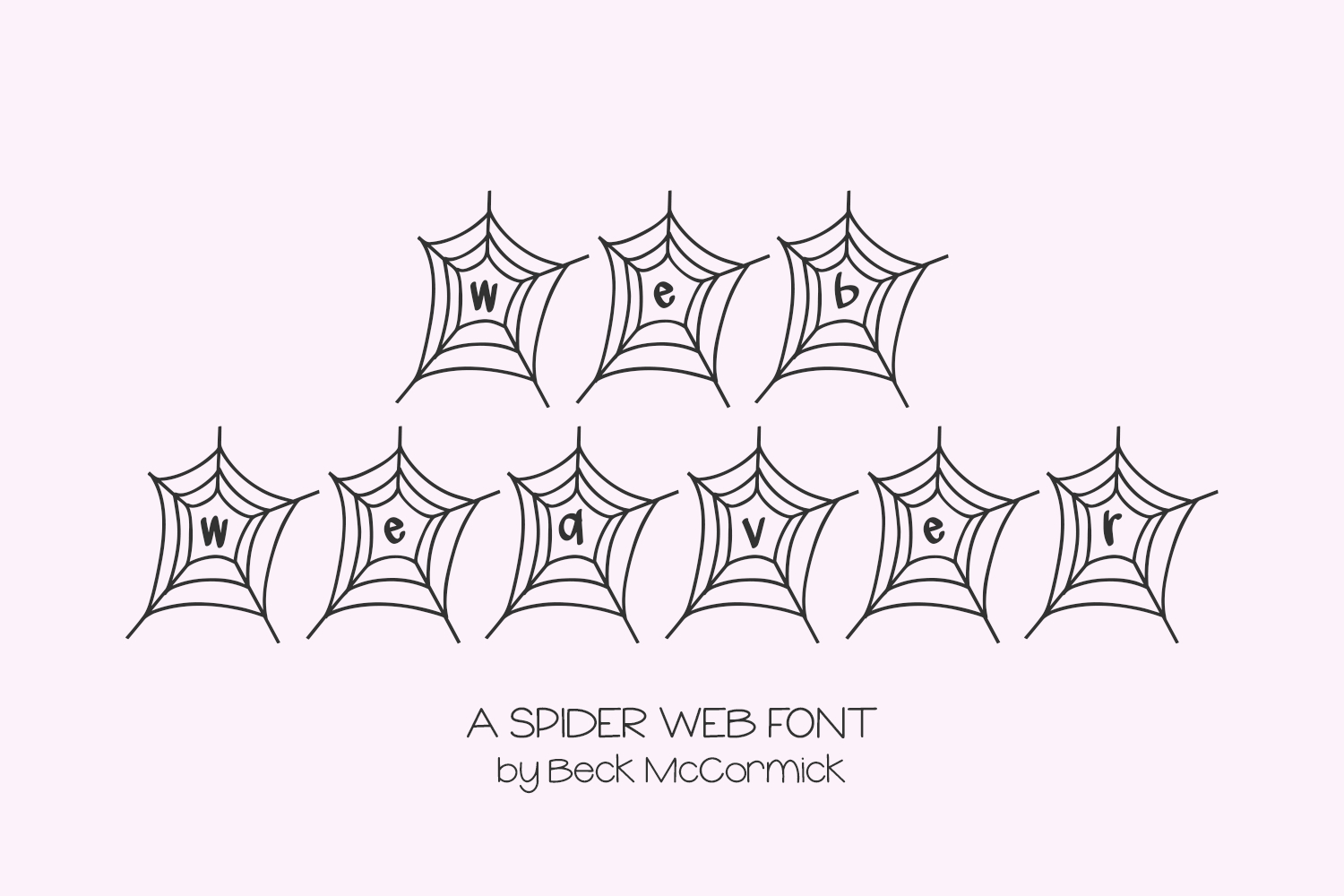
Web Weaver is a spider web themed font, perfect for creepy crawly designs & Halloween-themed decor. Web Weaver includes: - upper & lowercase letters contained within a spider web - numbers + punctuation - PUA-encoding - Western European language support